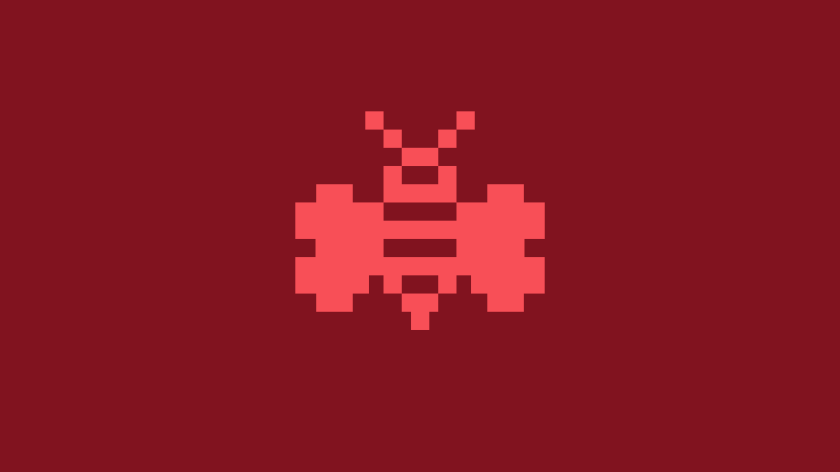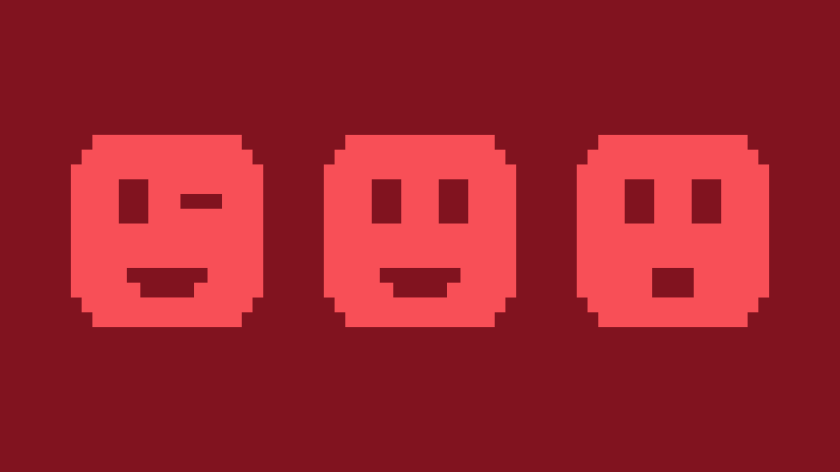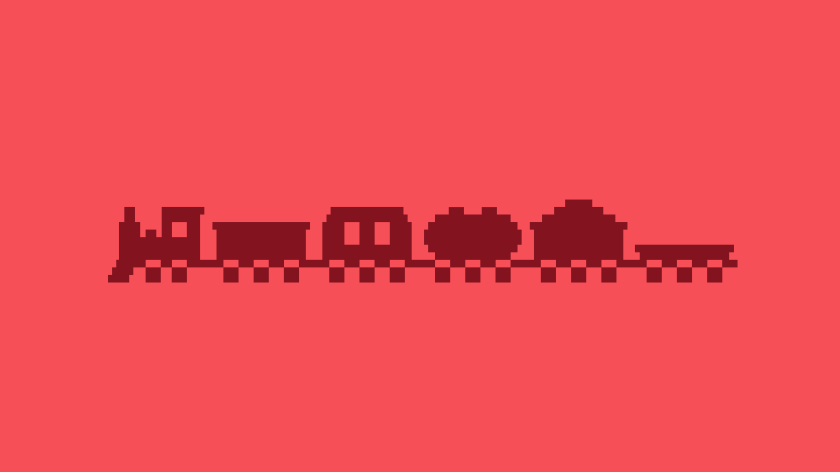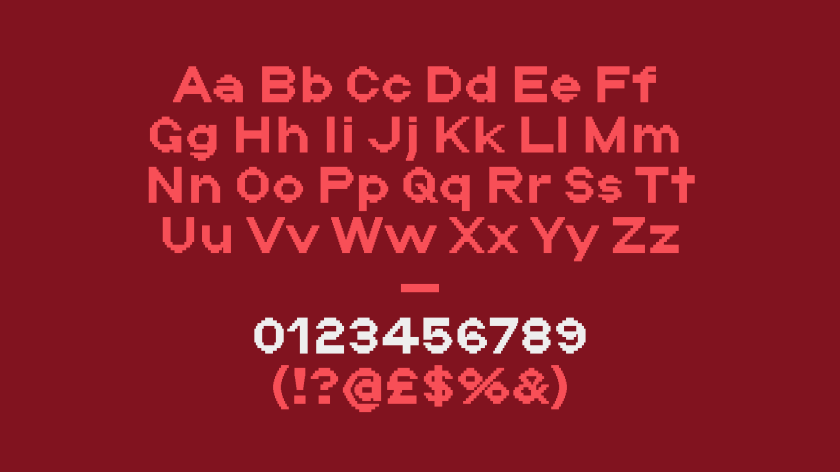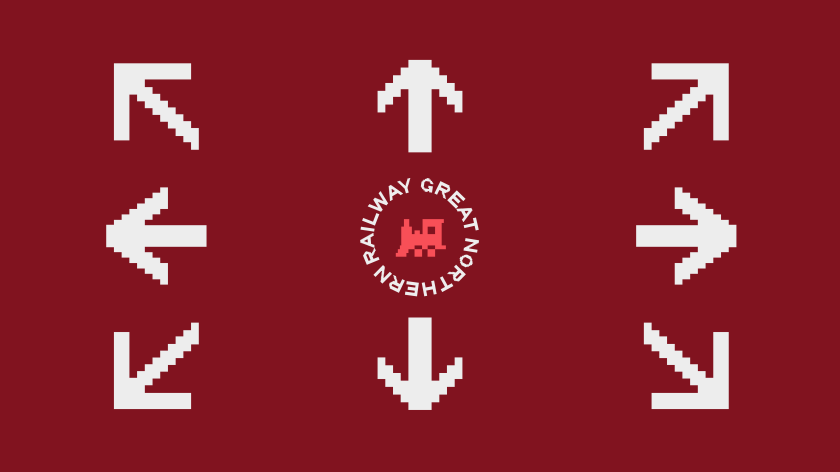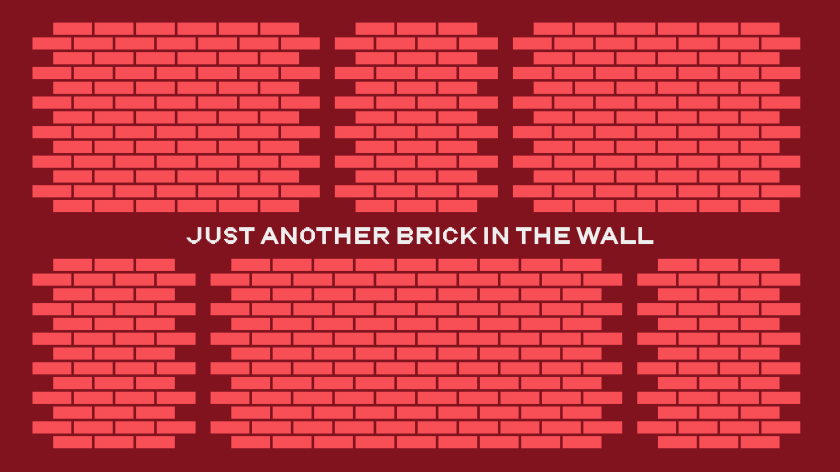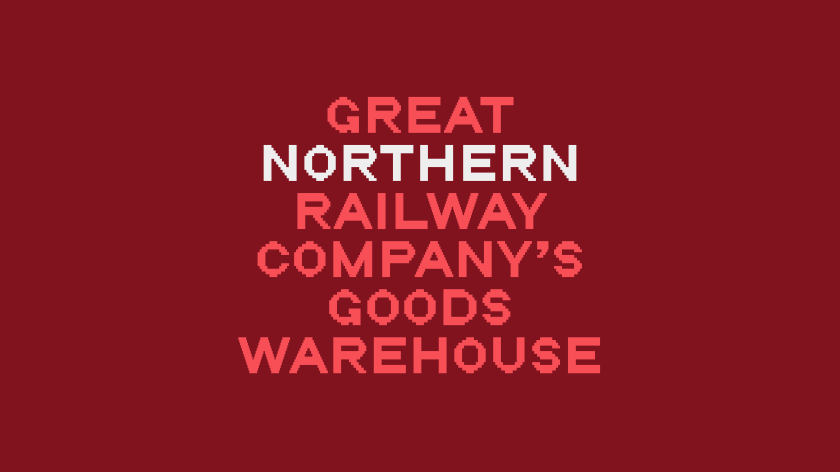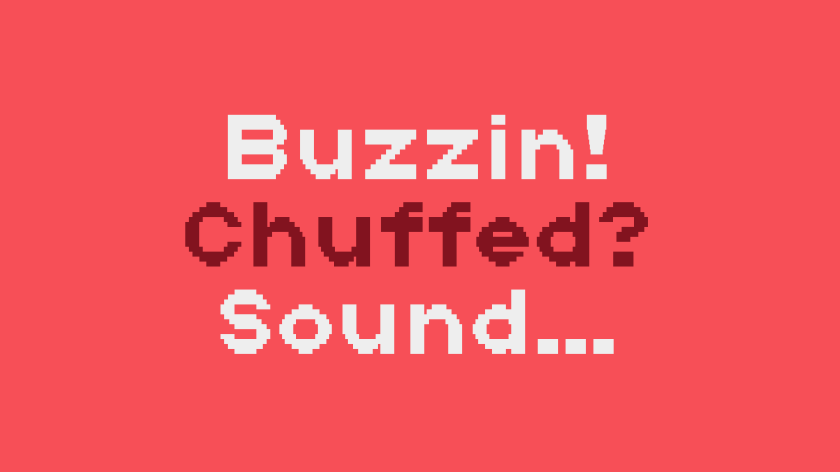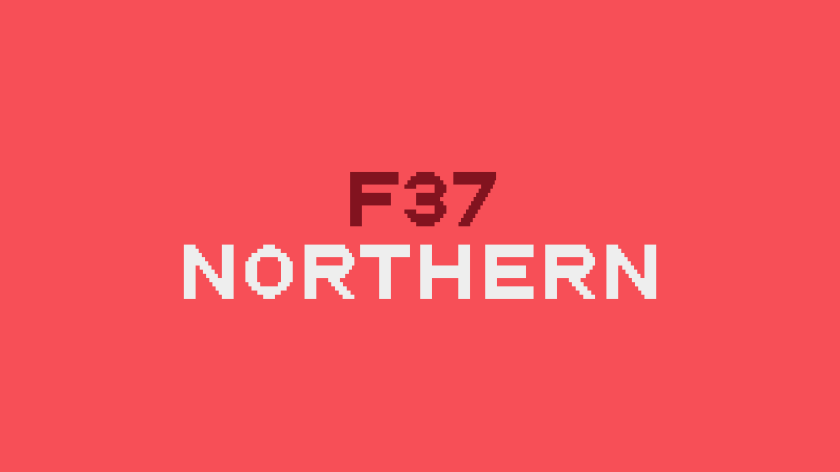
Using the letters on the façade of the well-known Great Northern Warehouse, the foundry created a font that “breaks modern expectations”.
Manchester-based type foundry F37 has revived the facade brick lettering on the Great Northern Warehouse, expanding the 19 letters on the building into an industrial typeface.
While many of the famous red brick buildings in Manchester are no longer used for industry, they are still viewed as iconic pieces of history, and many of the facades have been maintained to preserve the city’s industrial typographic landscape. F37 founder Rick Banks describes the facades as “a fantastic time capsule and resource for typographic inspiration”.
He explains how buildings such as the Great Northern Warehouse, Hotspur Press and the Dunlop Factory display “a pragmatic approach towards letterforms that reflects the attitudes of the industrial Mancunian”.
F37 designs a typeface that embodies the 'charm and idiosyncrasy' of industrial Manchester
The foundry’s design director, Duncan Gravestock, adds: “These letterforms are also quite a stark contrast to the ornate stone and metal lettering of the finical buildings also built around the same era, like the Northern Assurance Building.”
The Great Northern Warehouse has stood in the heart of the city, just off Deansgate, since 1898 and was once one of the most advanced railway goods exchanges in the UK. Now, it serves as a familiar backdrop to all those living and passing through Manchester.
Banks and Gravestock recall many nights spent “getting drunk and making memories” in front of the Great Northern Warehouse over the years, but it wasn’t until the foundry’s Christmas party last year that they truly noticed and started to appreciate it.
From there, the typography project evolved, and production began early this year. Since the brick lettering only contained 19 characters, the brief was to expand the character set into upper and lower case, numerals, punctuation, and the symbology of industrial Manchester.
F37 also had to ensure that all characters aligned with the original brick arrangement, so the font was built off a grid to match the lettering. However, “unlike a pixel grid”, says Banks, “the grid of a bricklayer is much looser”.
“Figuring out a way to define this grid was the first step. Once we had made vector rectangles in the ratio of the bricks used and defined a consistent structure for how these bricks should be cut and arranged, I can imagine the process was very similar to that of the builders who installed the original lettering.”
Even once the studio figured out how to approach the design process, Gravestock says it took a lot of trial and error to find the “most legible and efficient way to stack, only this time not 30 feet in the air”.”
You wouldn’t consider the font to be “pretty or elegant or even consistent”, he explains, describing the round letters as “thin and jagged” while the straight letters feel “too bold and smooth in comparison”. However, he adds that it imbues “all the charm and idiosyncrasy” often seen in industrial letterforms.
There were also tight boundaries when it came to legibility, so F37 had to “innovate in weird and wonderful ways that break modern expectations”, says Banks, which is something they often do in their everyday practice.
Reviving and redesigning an existing typeface rooted in so much history comes with many challenges. To work through them, there needs to be “a constant dialogue between type designer and source material, according to Banks.
“Getting Bezier curves perfect and the meticulousness of the profession is not dissimilar to the bricklayer in the late 19th century; we just have more precise tools nowadays”, he says.
There is also the question of how to retain a font’s historic roots while not being constrained by the limitations of the period in which it was drawn. Gravestock says: “Even in old foundries, the letterforms were all cut by hand, and the paper and ink were not always faithful representations”.
“How much of this do we keep, and how much do we ‘modernise’?”